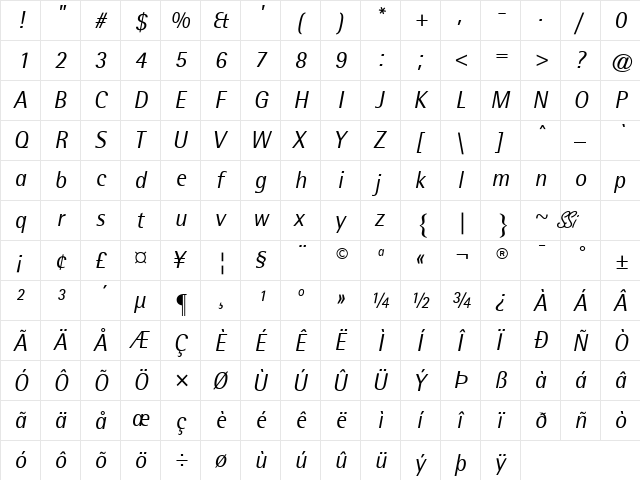
Libre Semi Sans SSi Italic
Design Context for Libre Semi Sans SSi Typeface
Libre Semi Sans SSi is a composed and adaptable typeface that performs quietly and consistently across a wide range of design contexts. Its italic angle brings a sense of urgency and motion to the letterforms.
Pro Tip: Try Libre Semi Sans SSi for annotation and caption copy alongside an upright companion — the contrast in angle creates a dynamic but ordered typographic system.